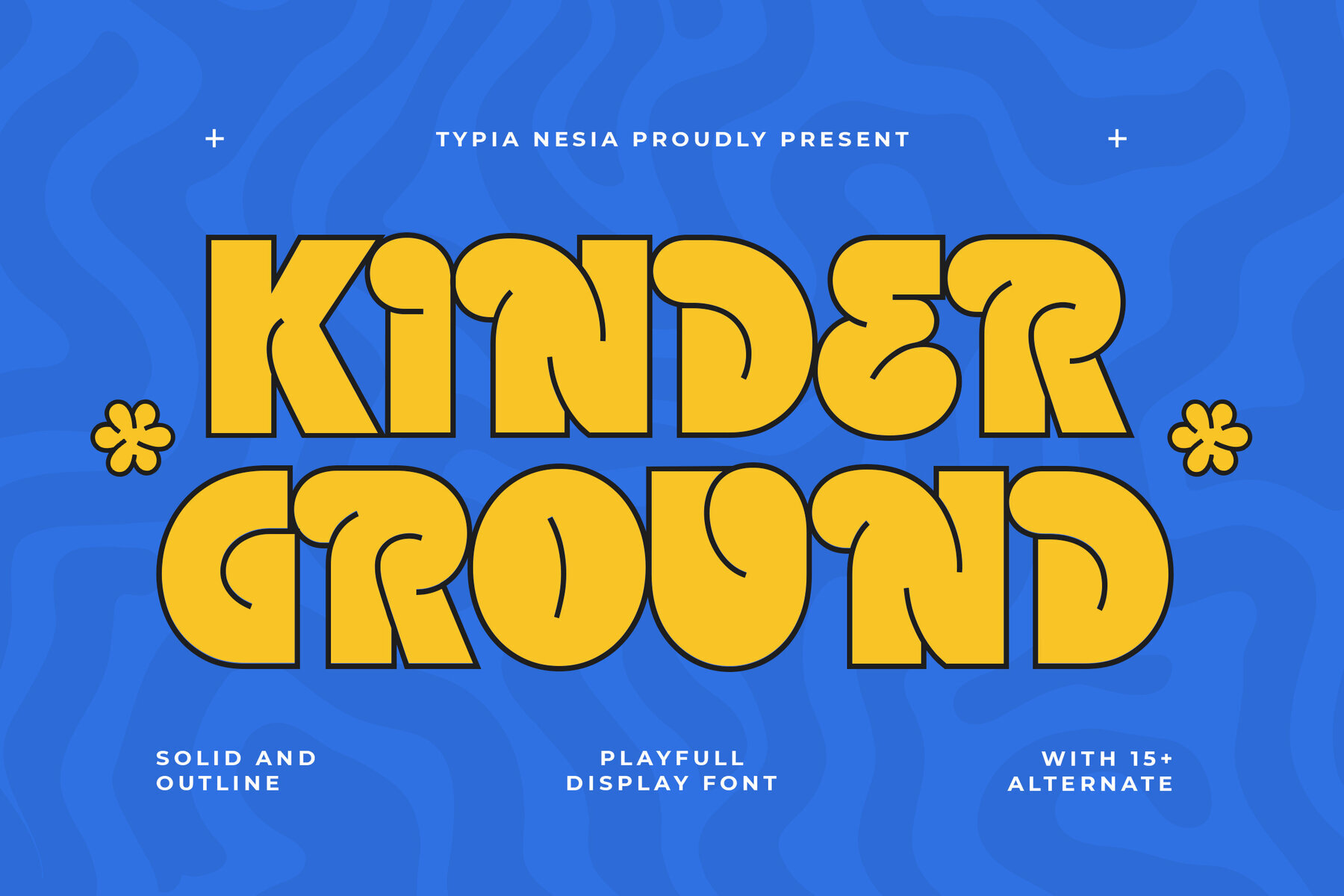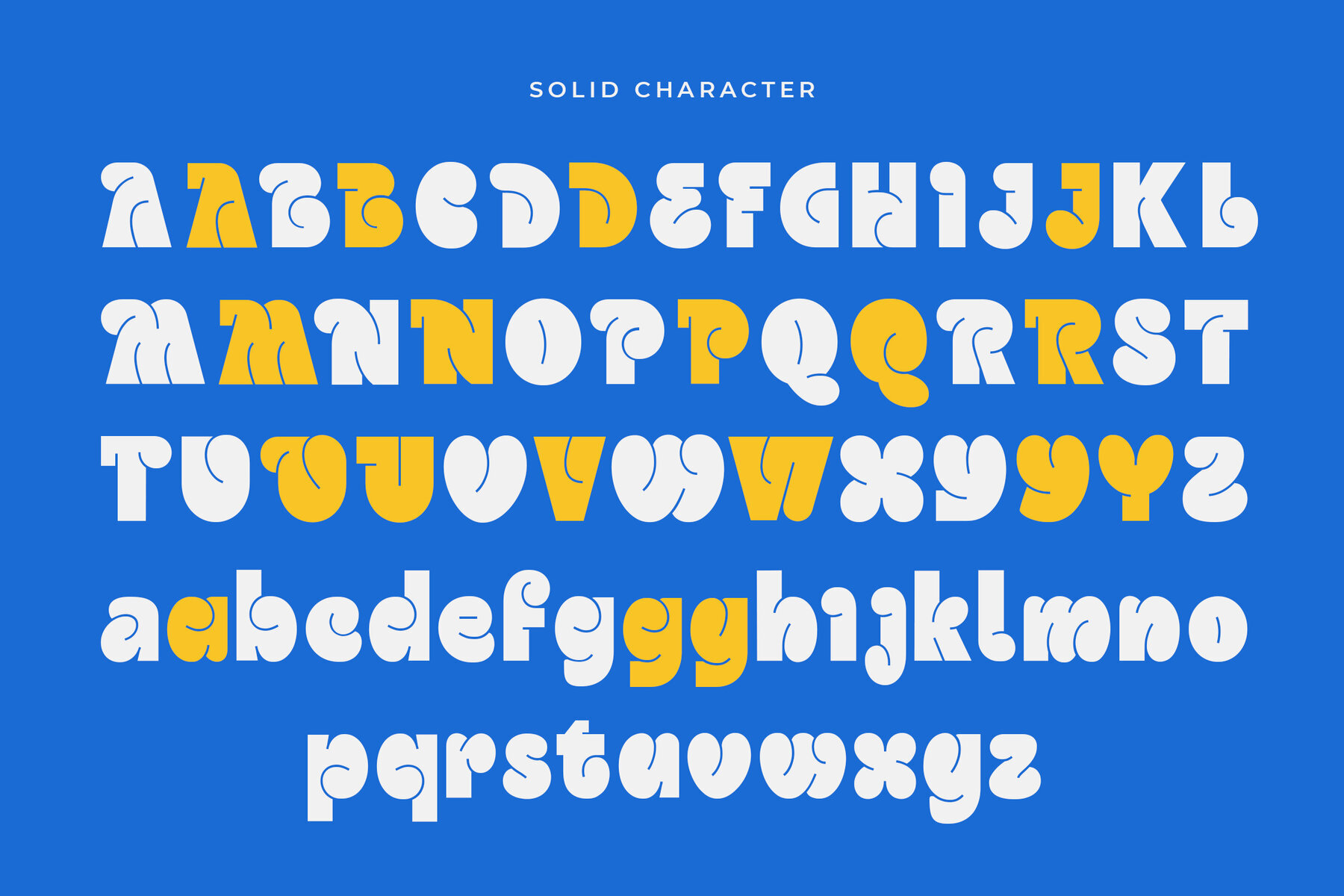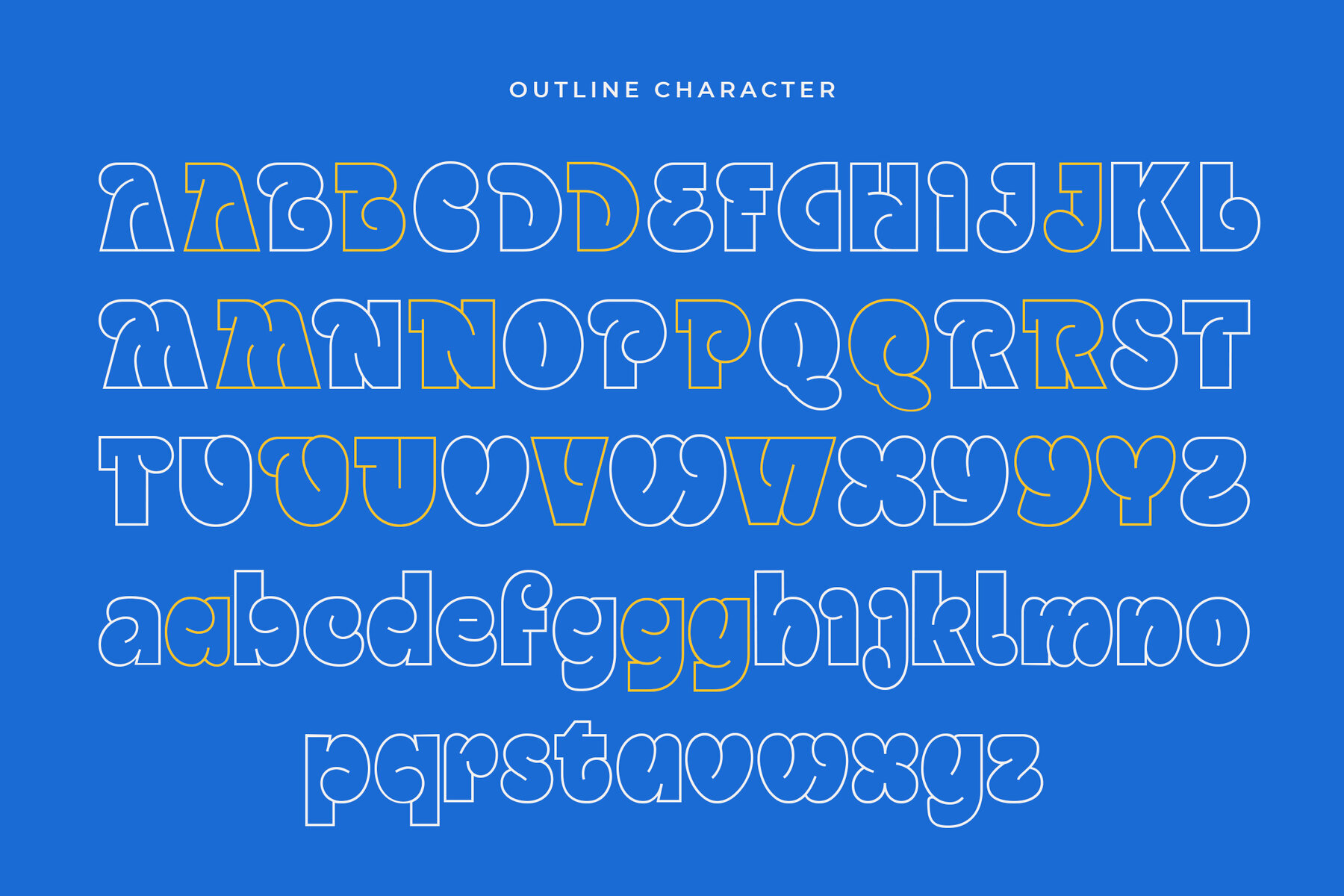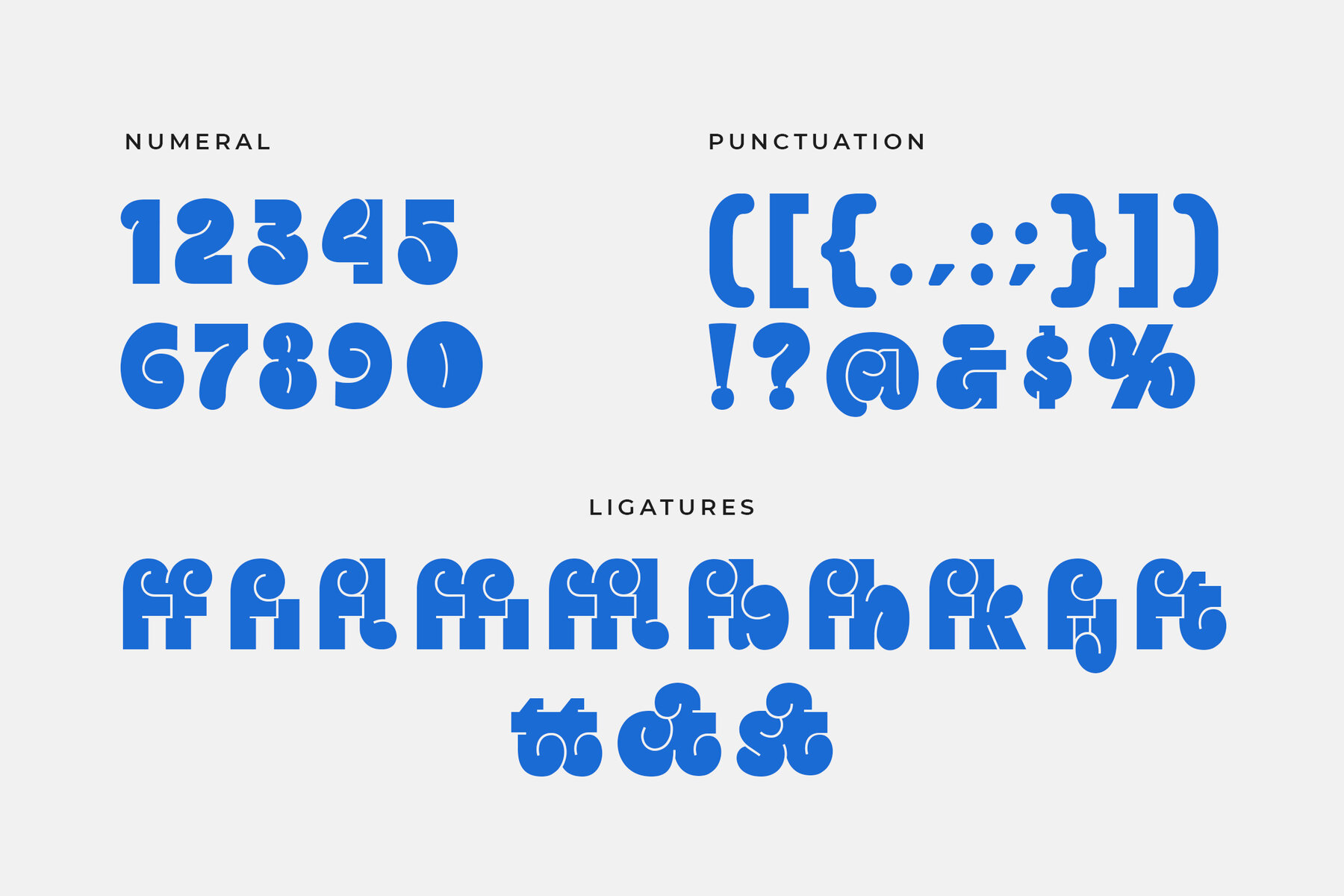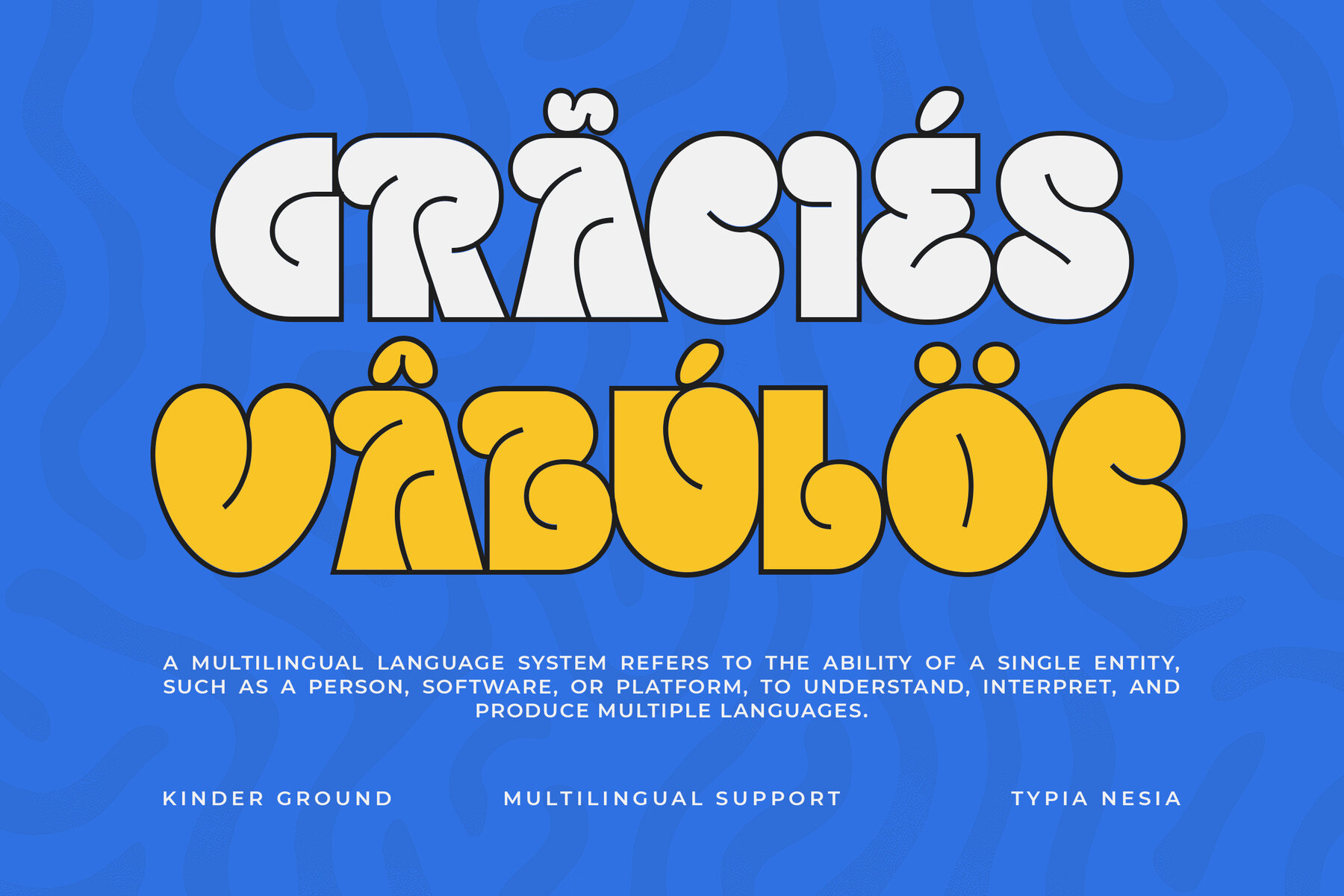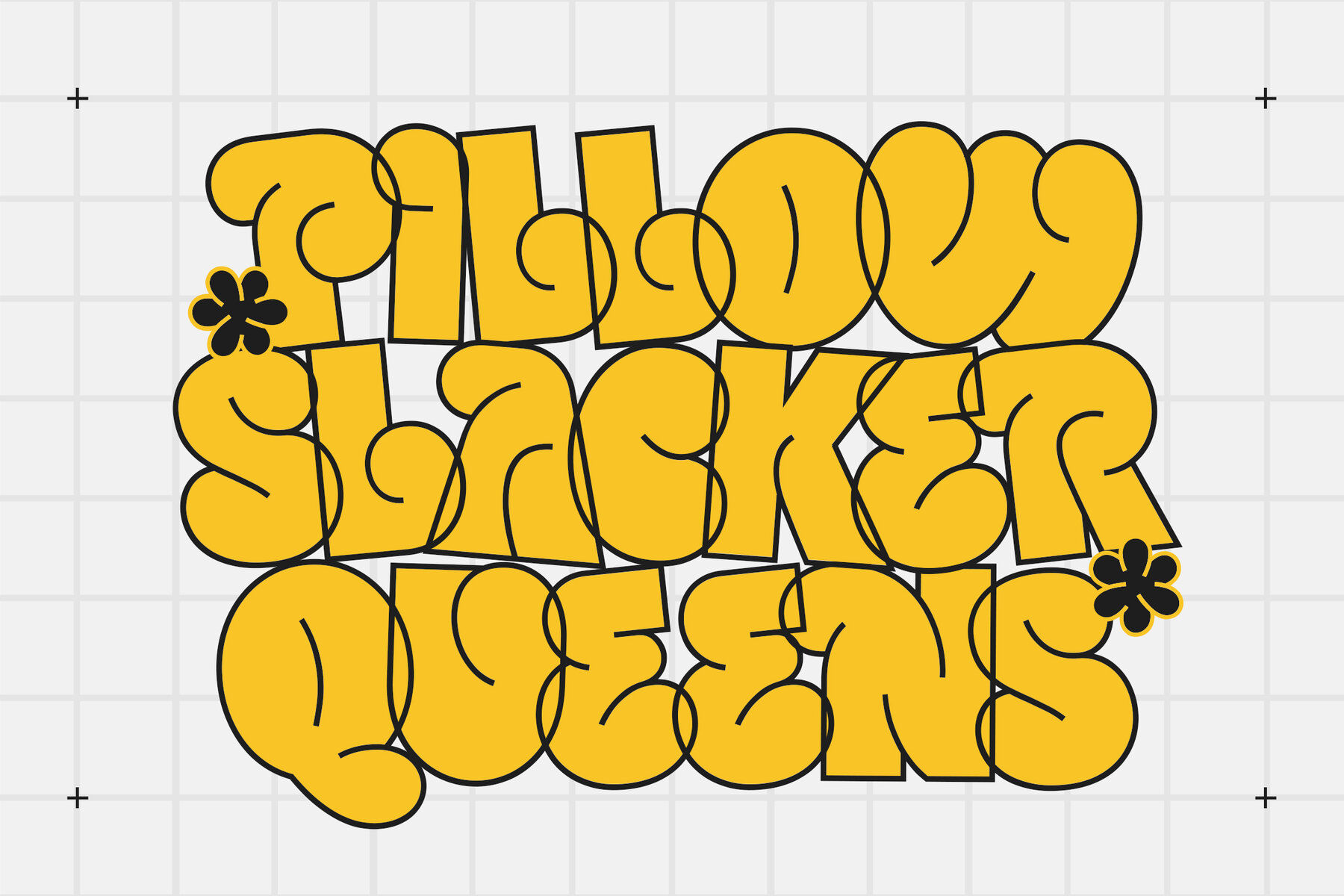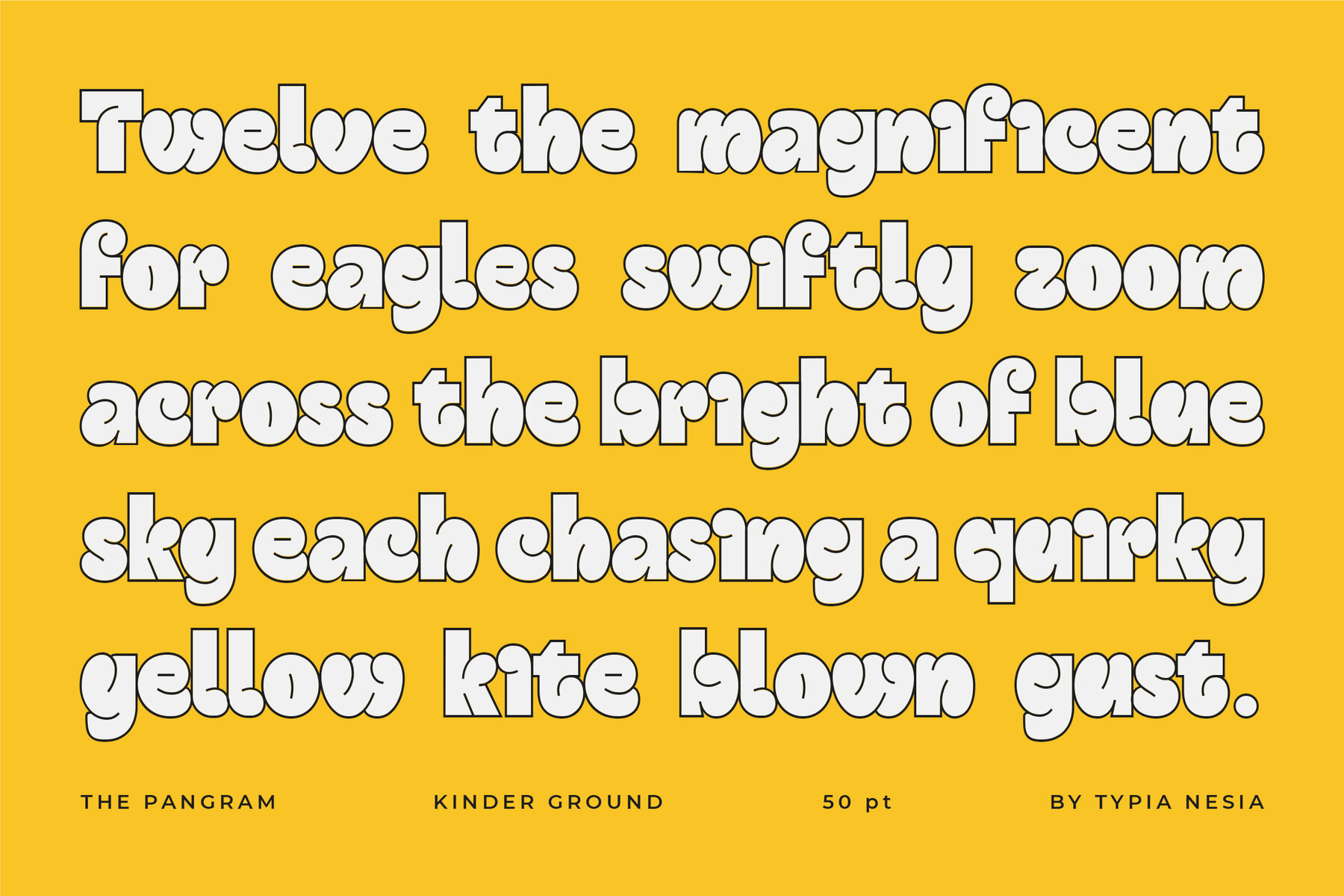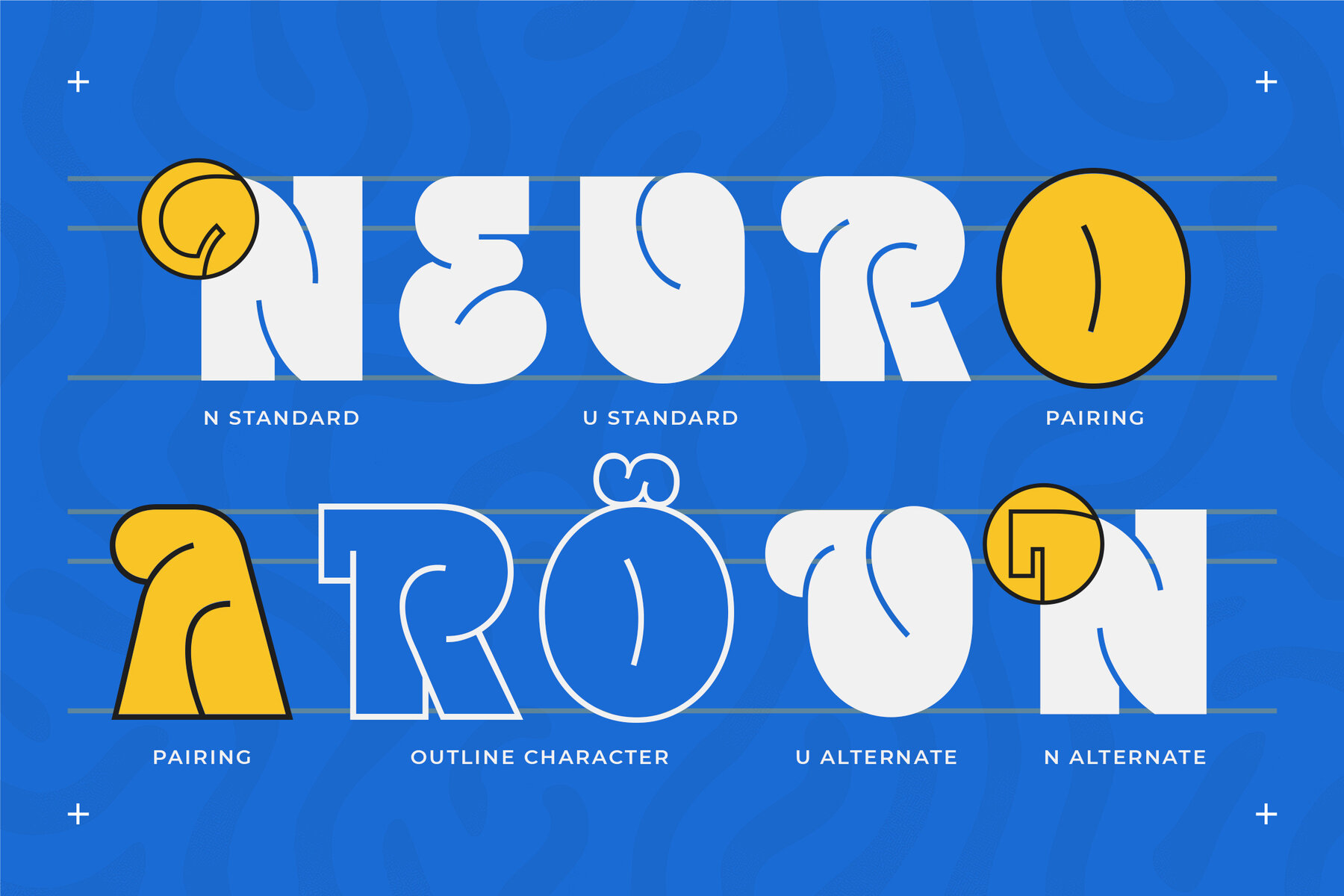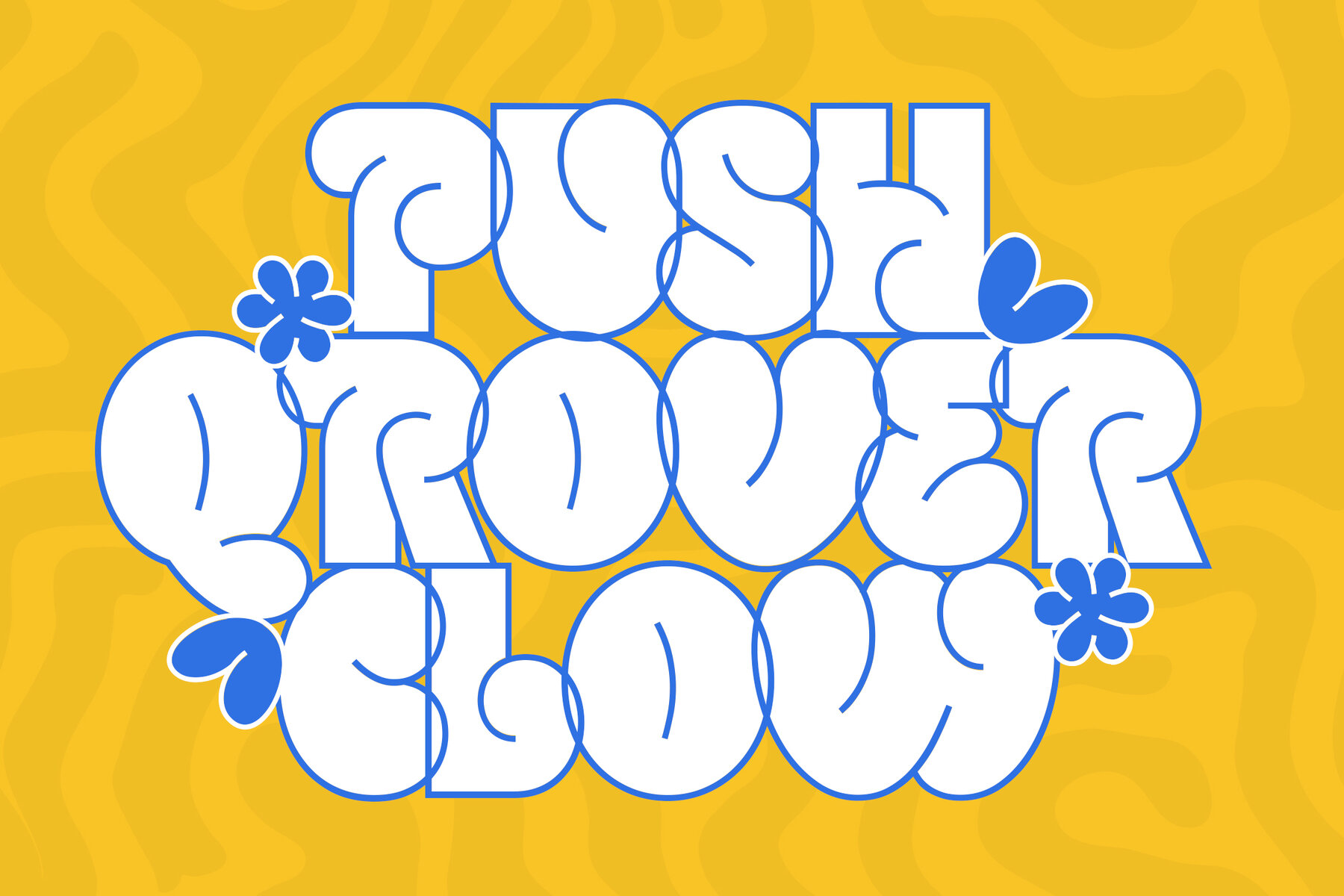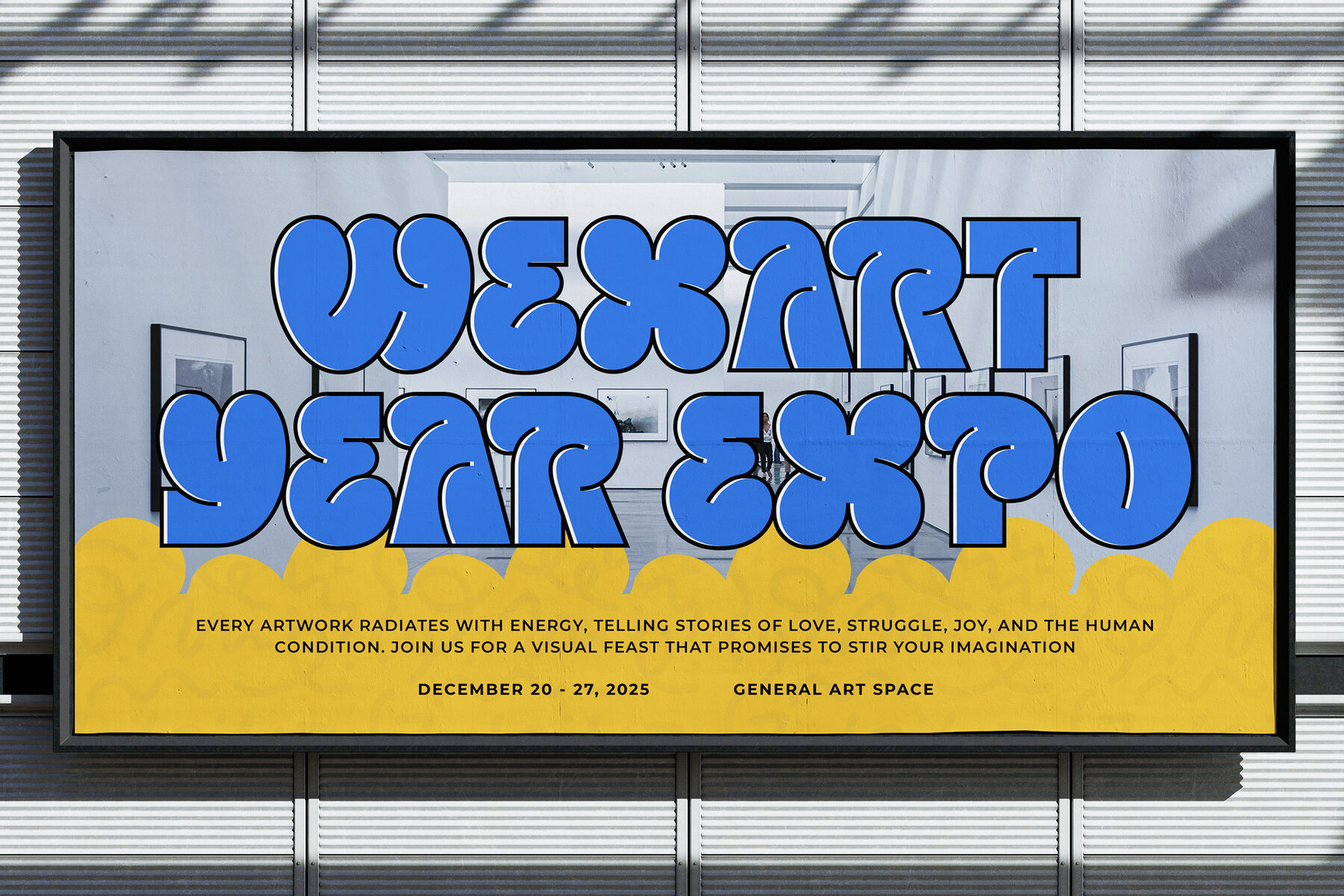
Kinder Ground Font
Kinder Ground Outline
Kinder Ground Solid
Kinder Ground is a Playful Display Font that brings a joyful, youthful vibe to any project. Available in both outline and solid styles, this font is perfect for adding a touch of fun and creativity. Its rounded, friendly characters make it approachable and ideal for designs aimed at playful branding, children's books, toy packaging, playful logos, educational materials, fun social media graphics, and any project that requires a bold and playful touch. Comes with uppercase, lowercase, punctuation, numerals, ligatures, alternates, and multilingual support. The solid and outline styles provide flexibility for different design needs, allowing for playful and dynamic compositions. Designed with creativity and playfulness in mind, Kinder Ground helps designers bring out a sense of fun and imagination in their projects, making it a go-to font for fun-centric or playful themes. Add a fun twist to your designs with Kinder Ground! Download now and unleash your creativity. Thank You.